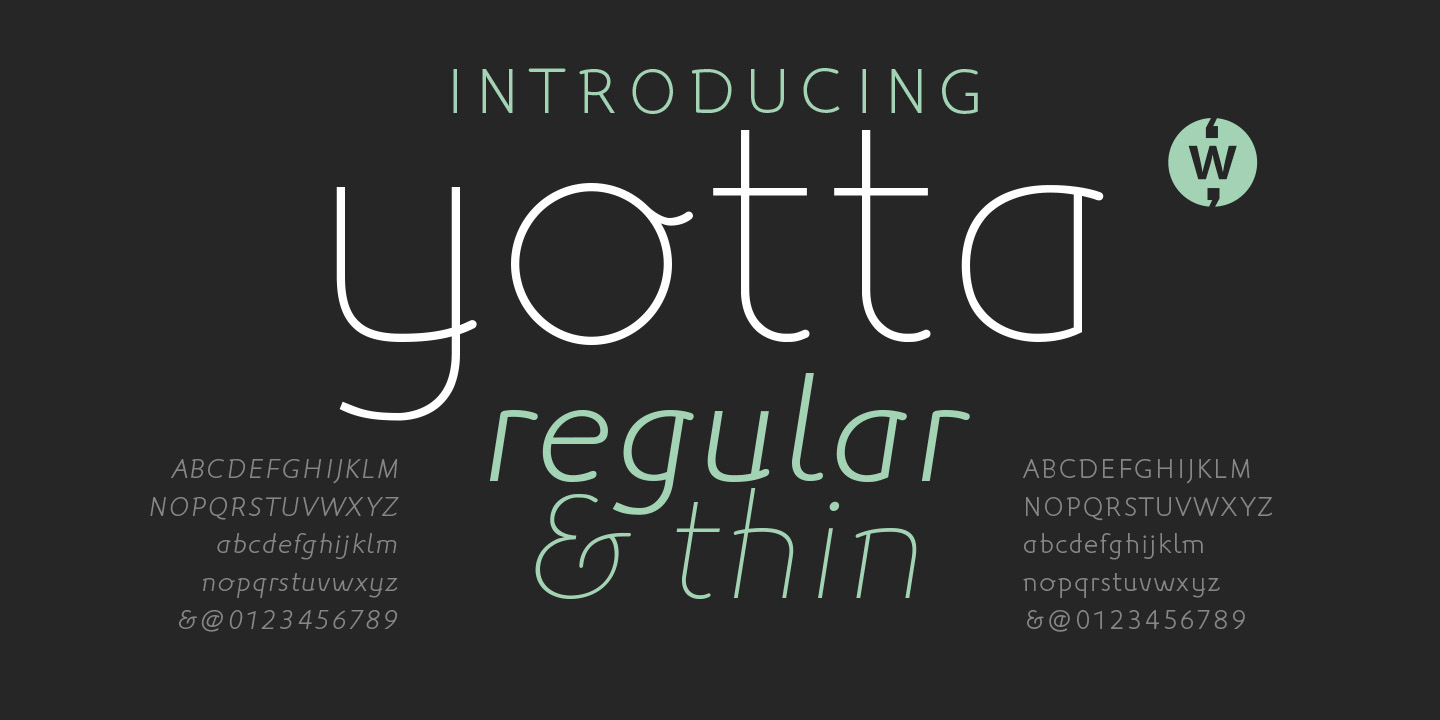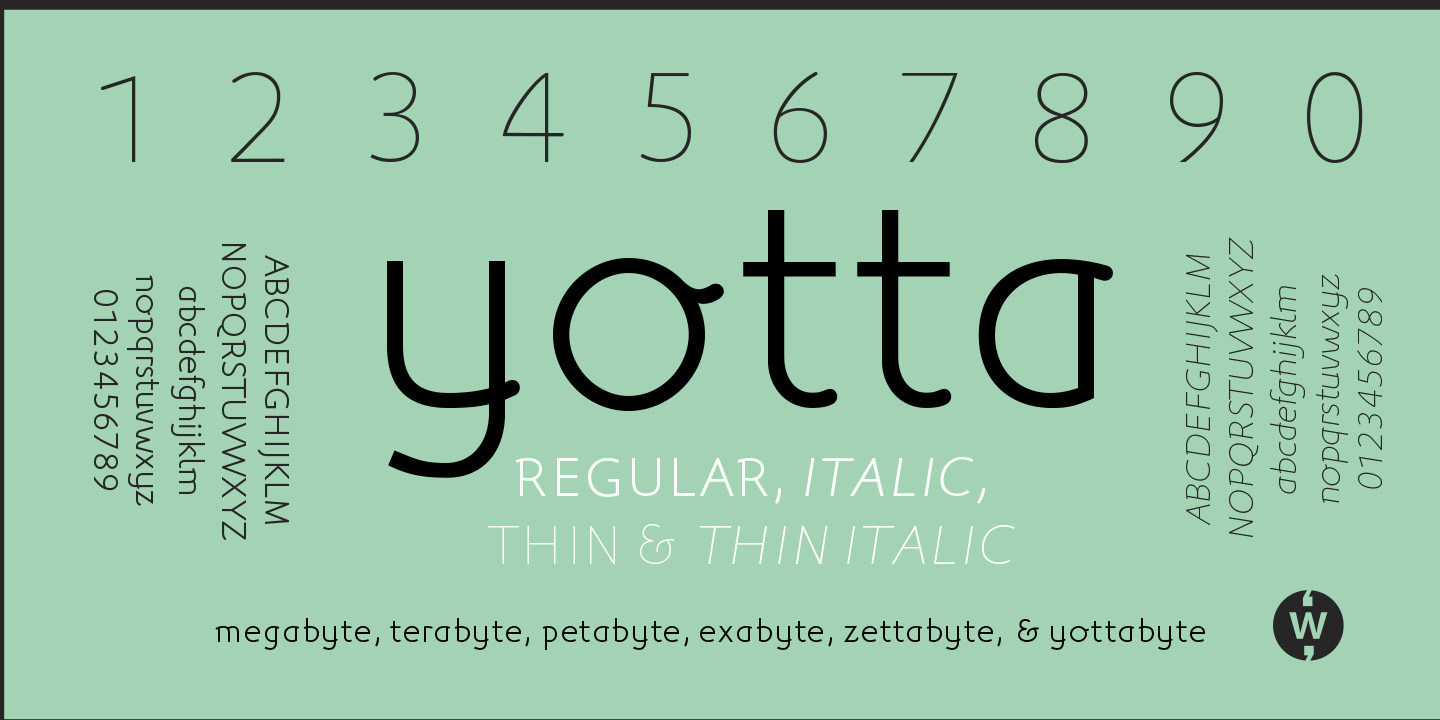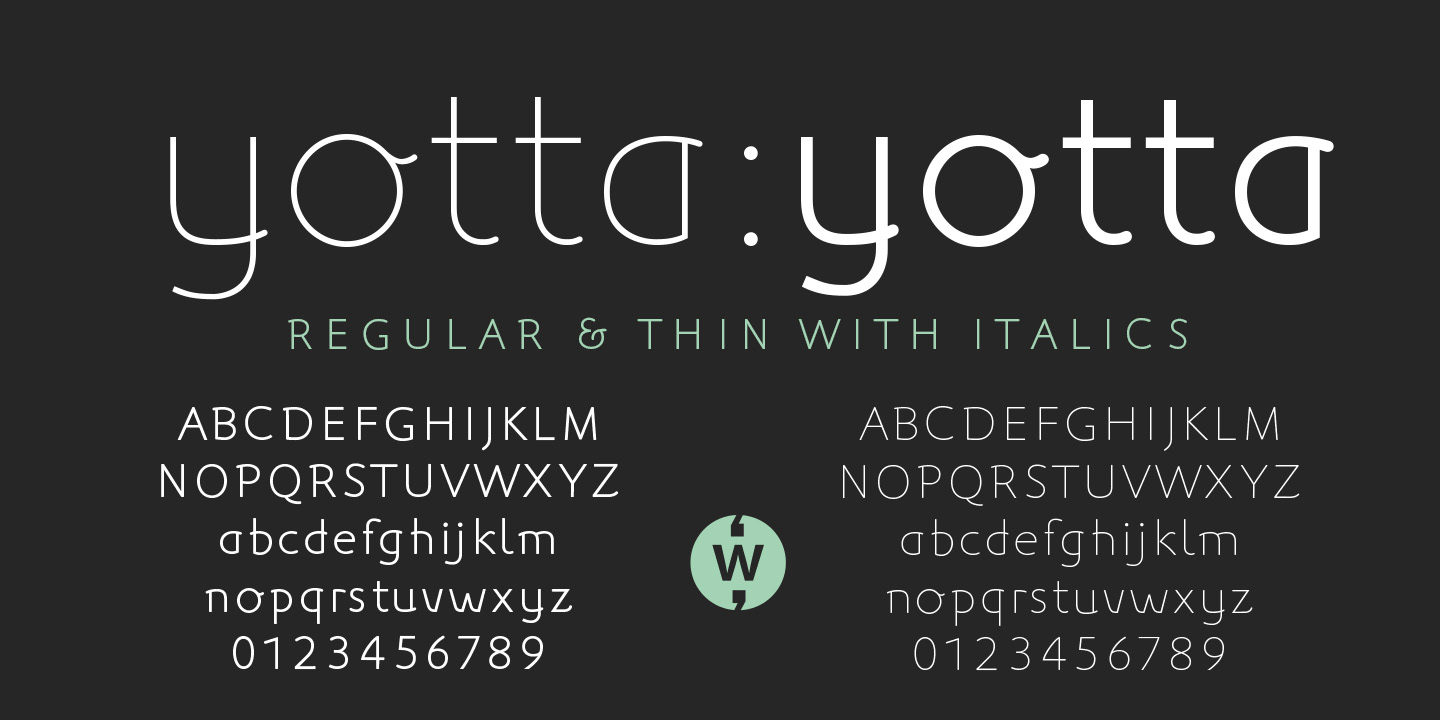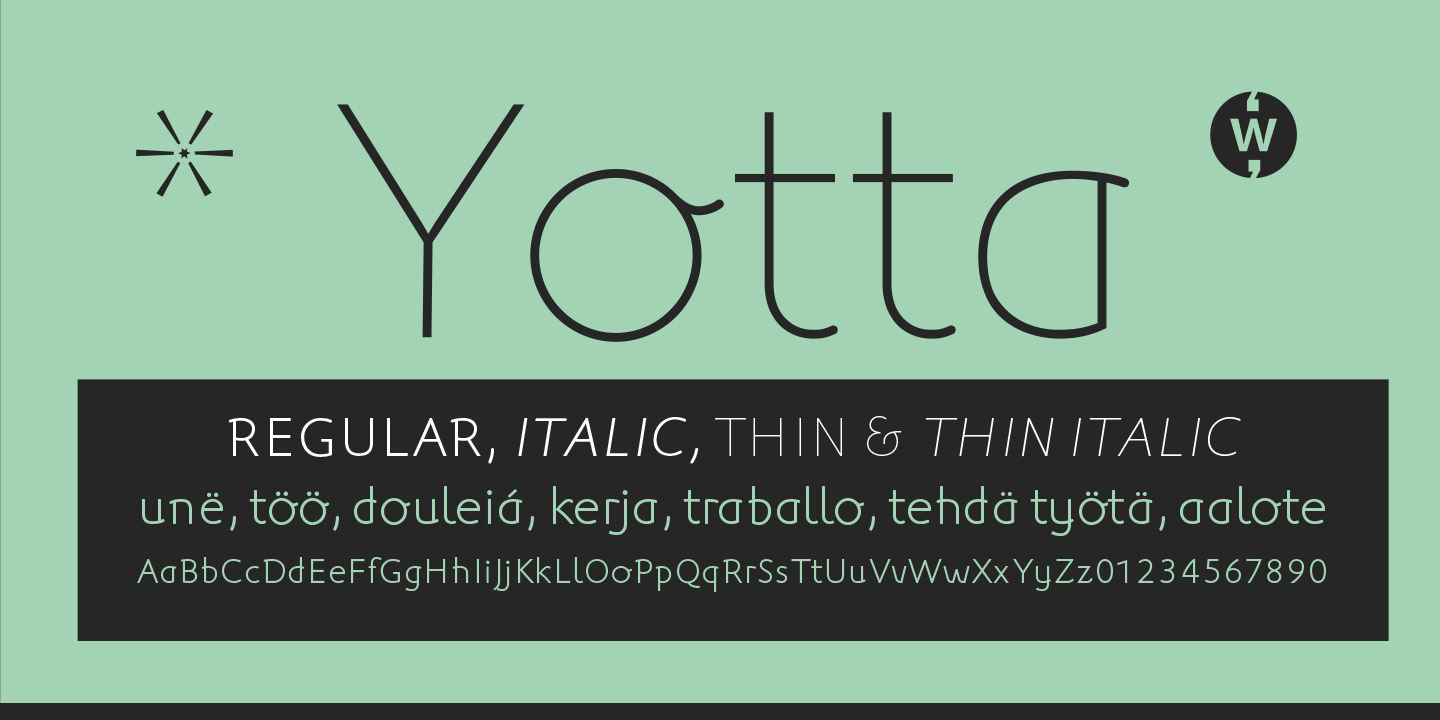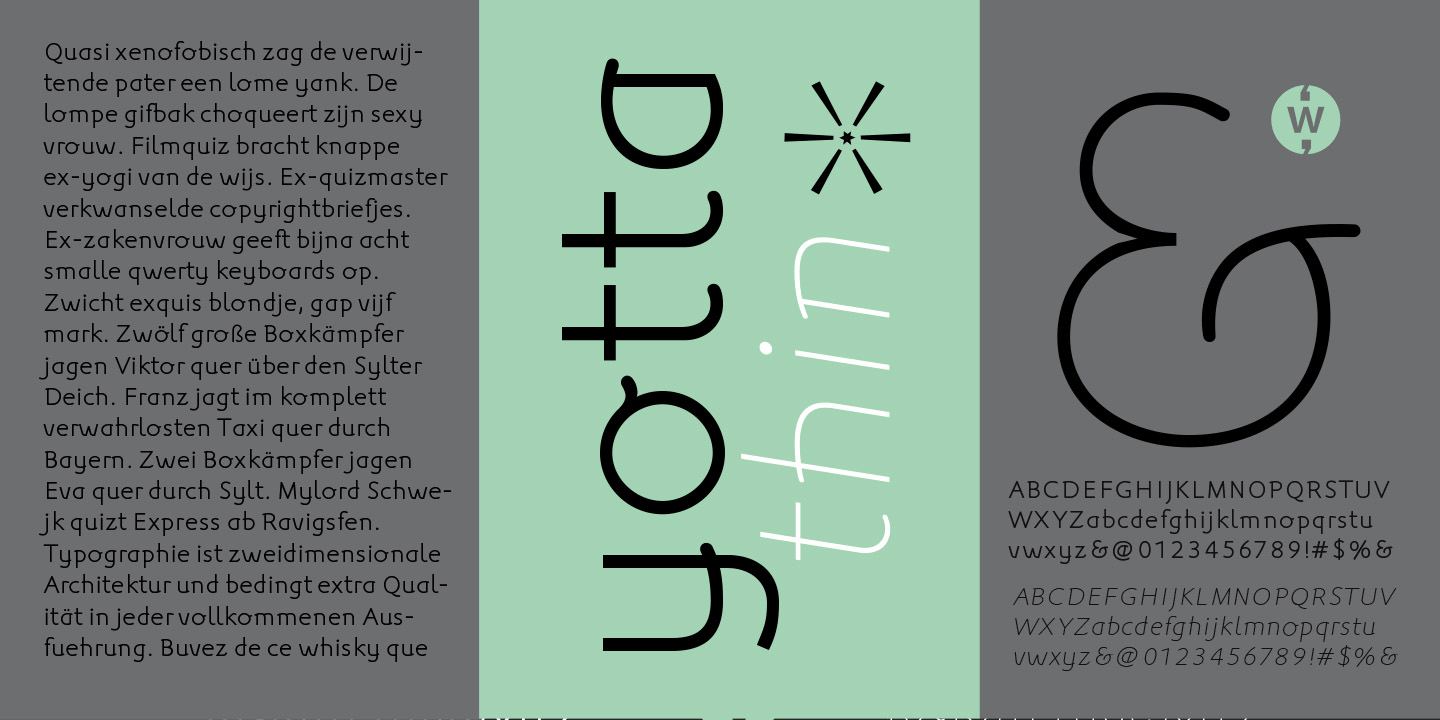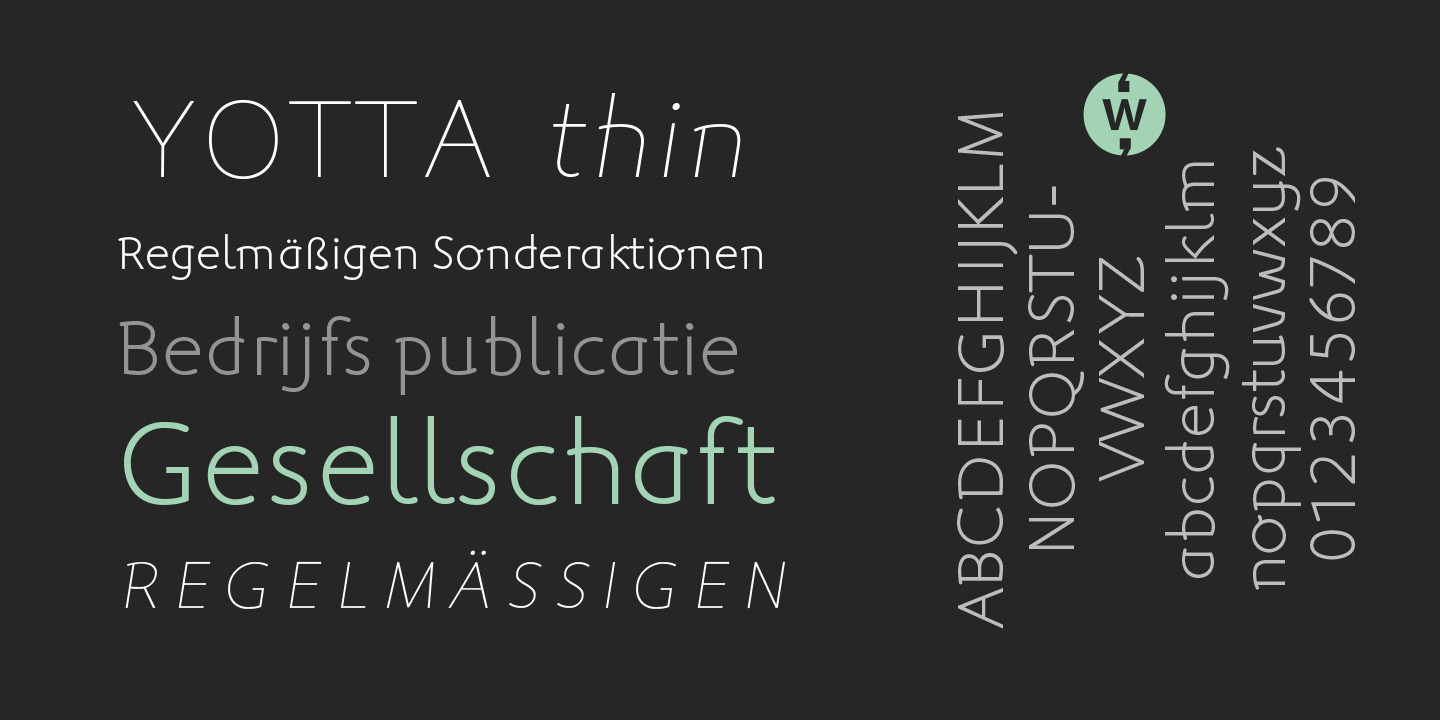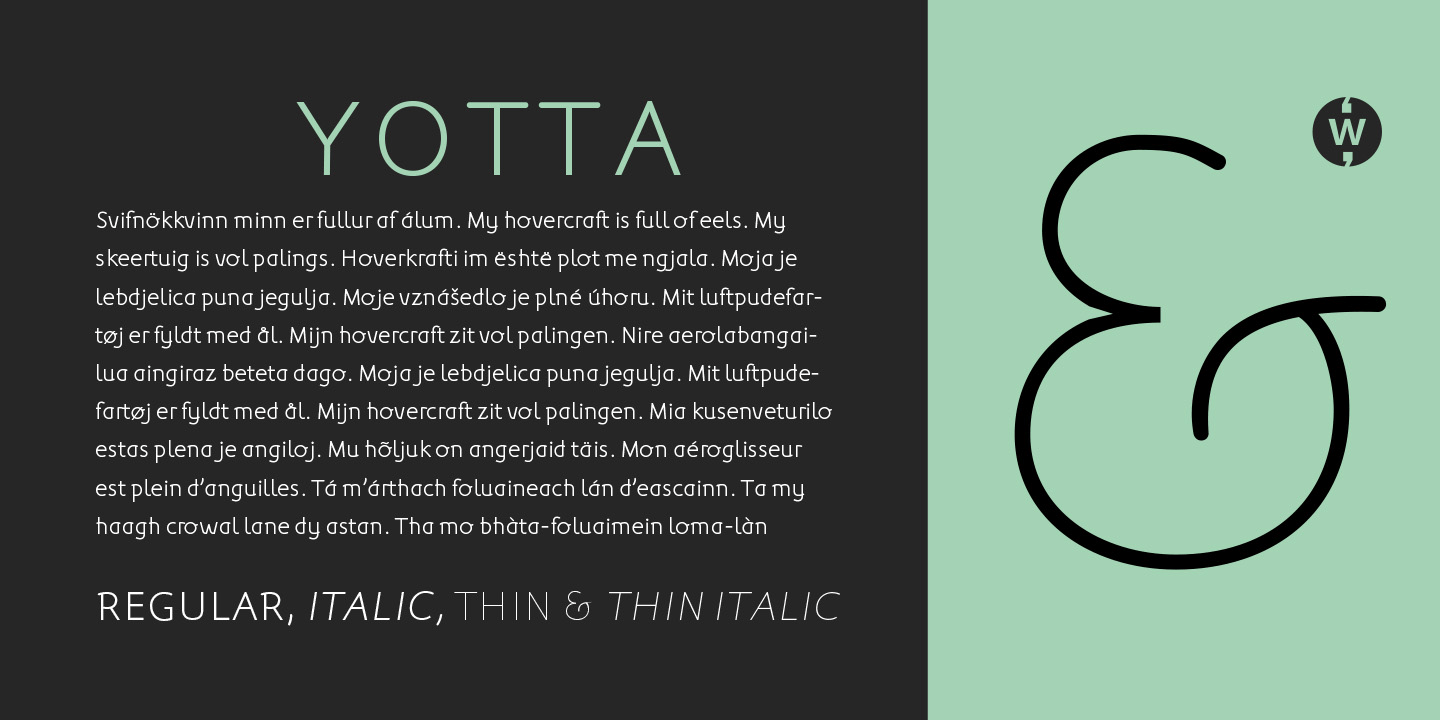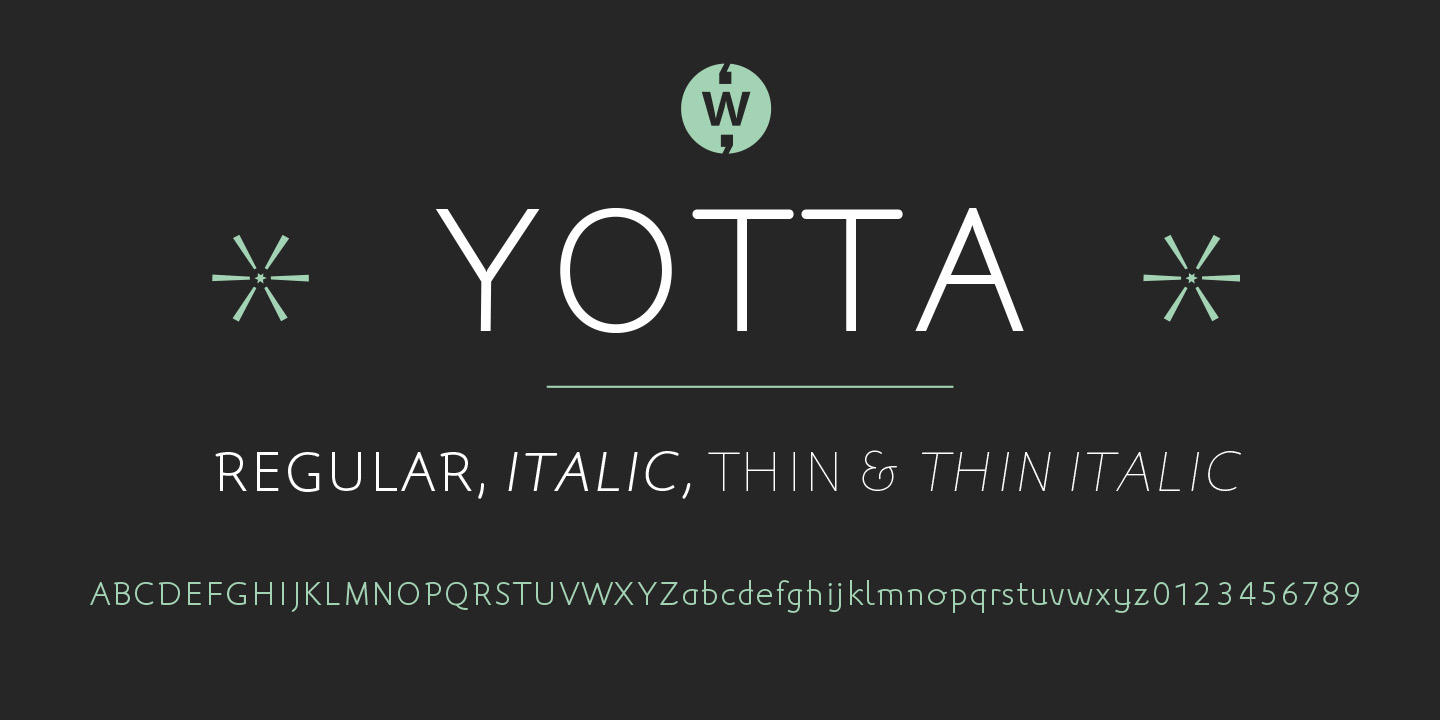
Yotta
Font Family by Wilton Foundry
Yotta was created for situations where a thin sans with a little extra style is required in branding, advertising promotional projects ? it is especially suited for the FASHION retail industry. The extended stroke feature (in u/c B,DP,R and l/c a,b,dg,h,m,npq,u,y) is discreetly applied so it does not dominate. I guess ?quasi-serif? might be a way to describe Yotta. ?Yotta Thin? and ?Yotta Thin Italic? is a friendly Opentype and ready for you to unleash your creativity!
btw. Yotta is big, very big: the name comes from YottaByte, as in Megabyte (one million bytes), Gigabyte (one billion (109)Terabyte (one million (1012), Petabyte (a million gigabytes), Exabyte one quintillion (1018), Zettabyte one sextillion (1021), & Yottabyte (one septillion (1024)